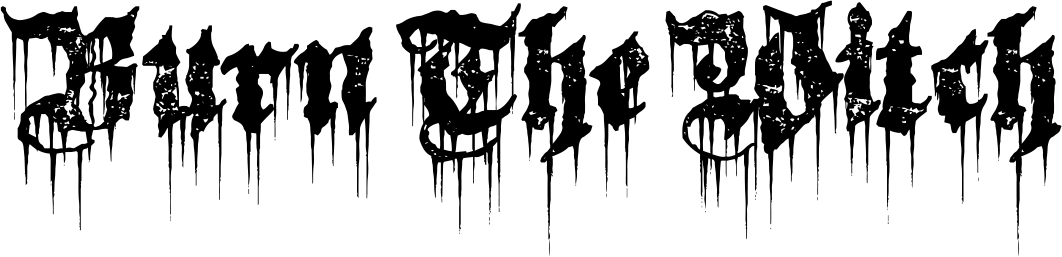
Burn The Witch Font
You can’t go wrong with Burn The Witch which’s one of the best death metal fonts. Can you feel the creepy vibes this dripping, grunge font is giving off?
Indeed, it doesn’t include the numbers, but the fact that it can turn your projects upside down has to be taken into account as well. Use this blood dripping font on your album covers, horror movie posters, magic shop signs as well as many more and you’ll see the amazing results yourself!